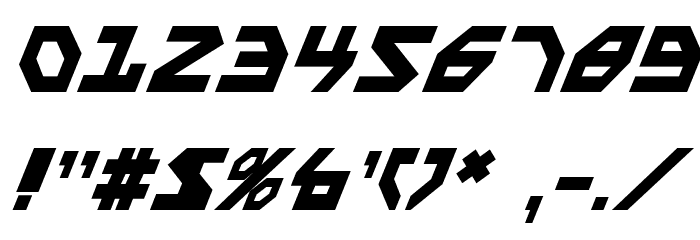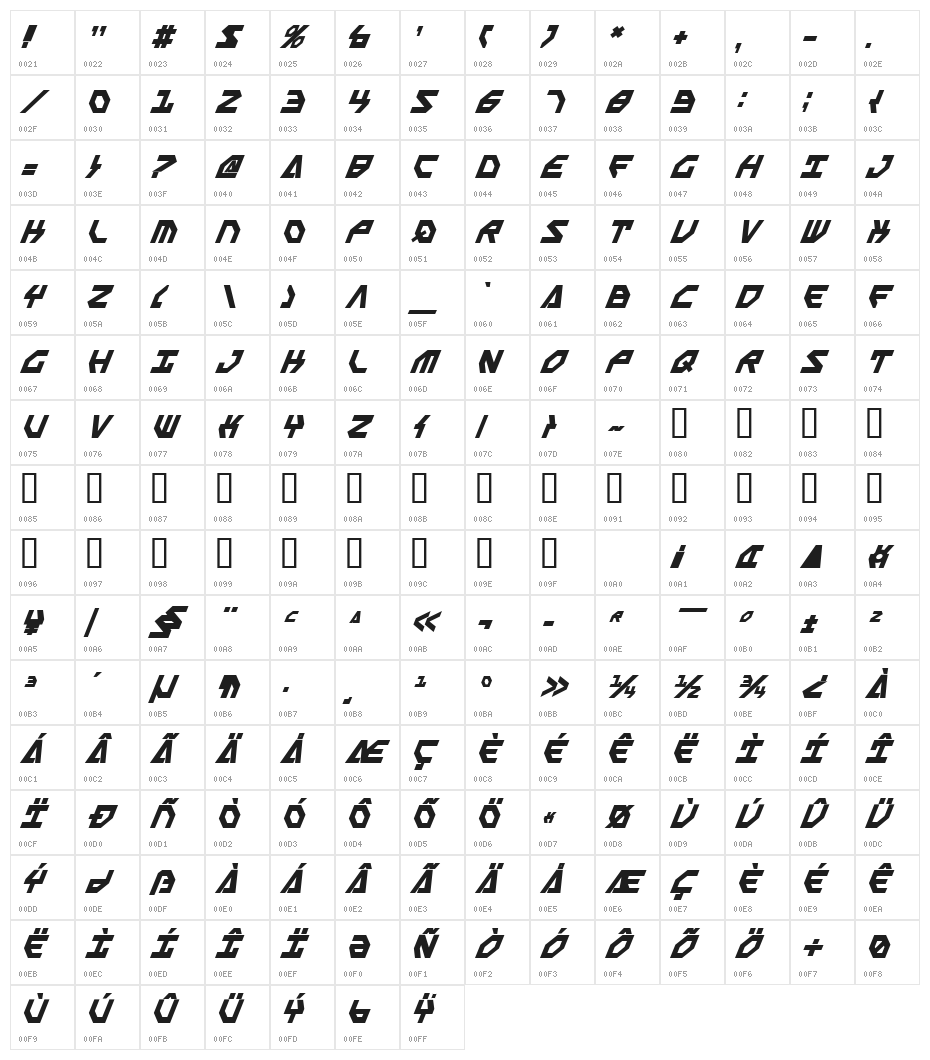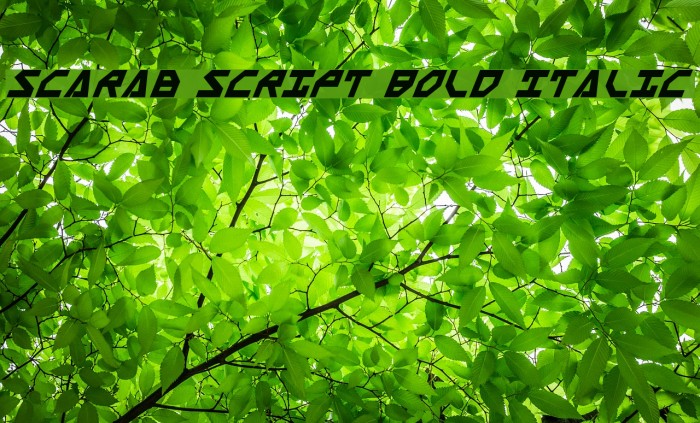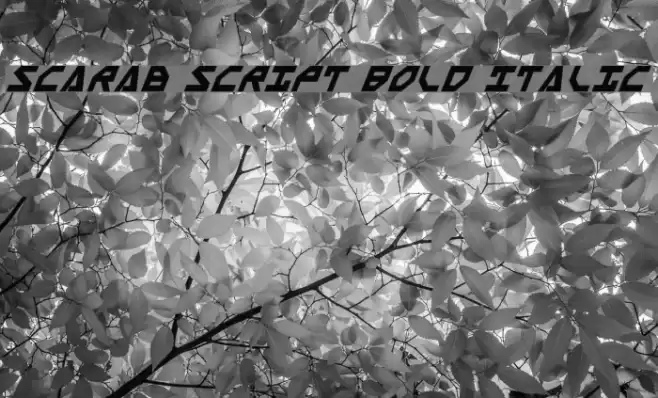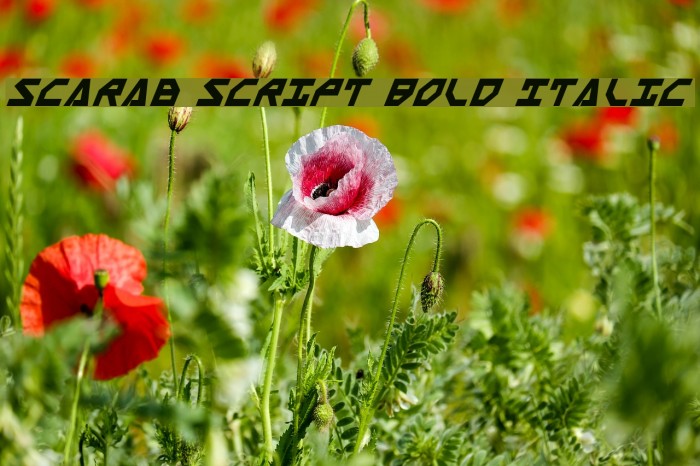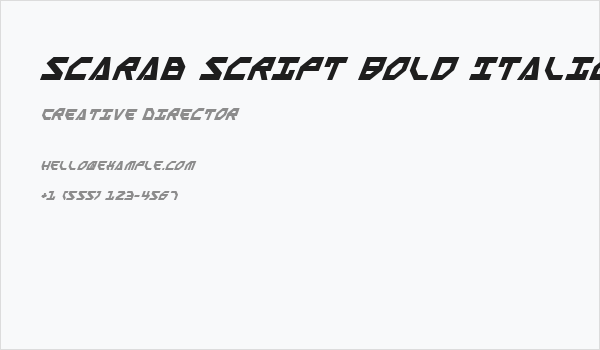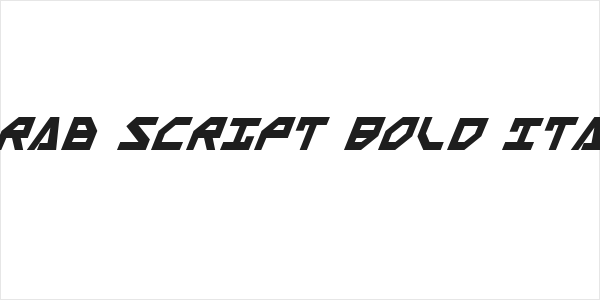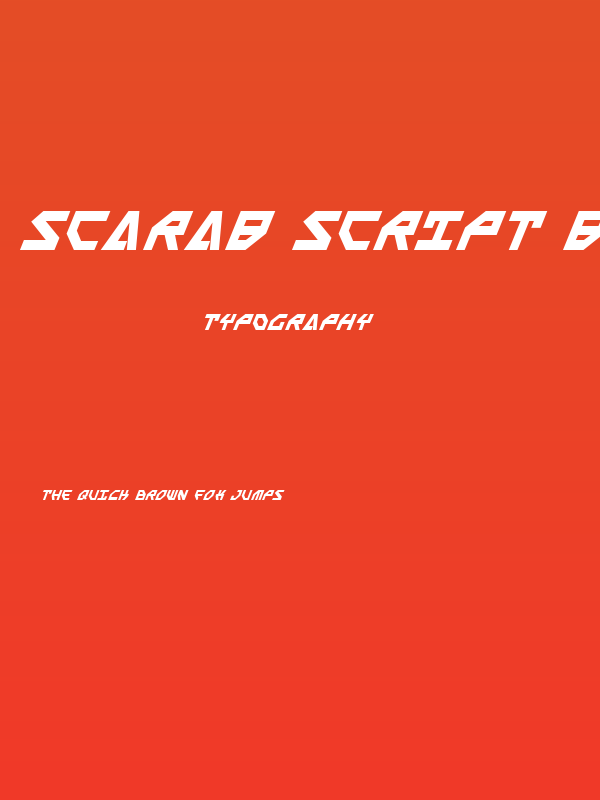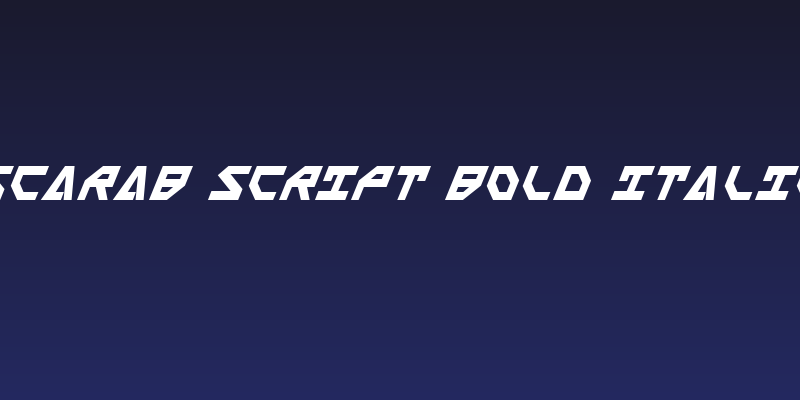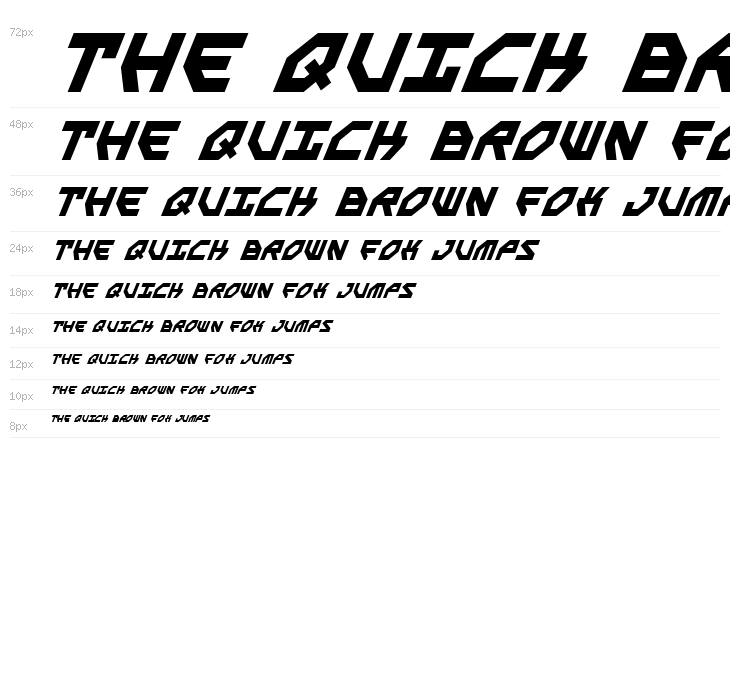
Scarab Script Bold Italic Font
Scarab Script Bold Italic Description
This font features a bold and italicized style with a distinct geometric and angular design. The characters are sharply defined, with a futuristic and dynamic appearance. The uppercase and lowercase letters maintain a consistent slant, enhancing the italic effect. The numbers and special characters follow the same angular theme, providing a cohesive look across all elements. The bold weight of the font makes it highly visible and impactful, suitable for attention-grabbing designs.
| Proposed Projects | Ideal for sci-fi themed projects, video game titles, posters, and branding that requires a modern and edgy look. |